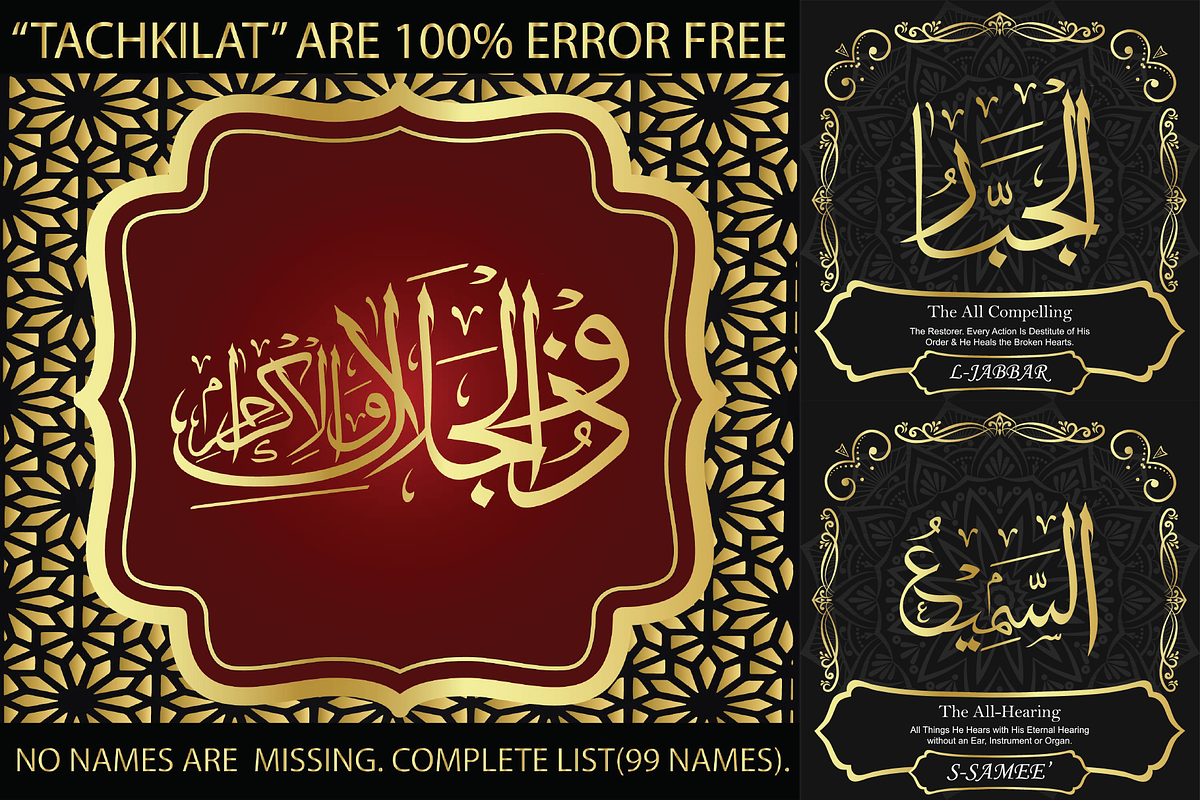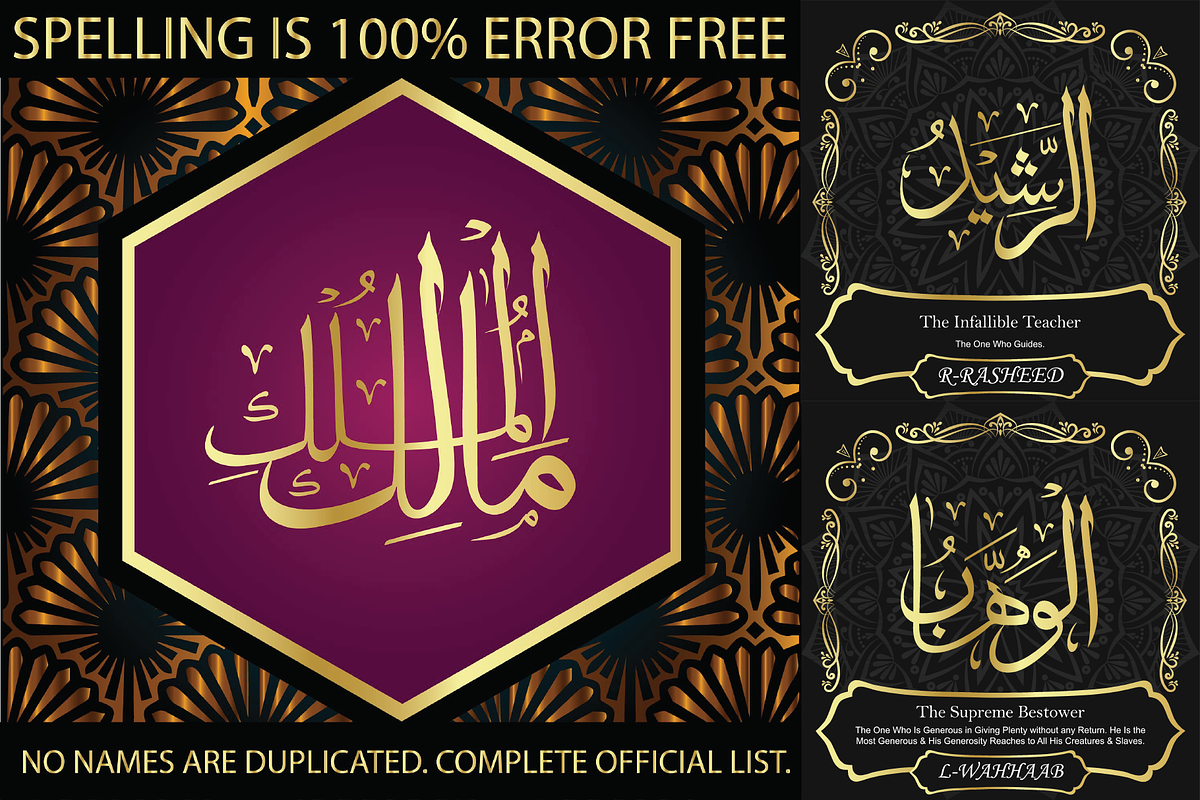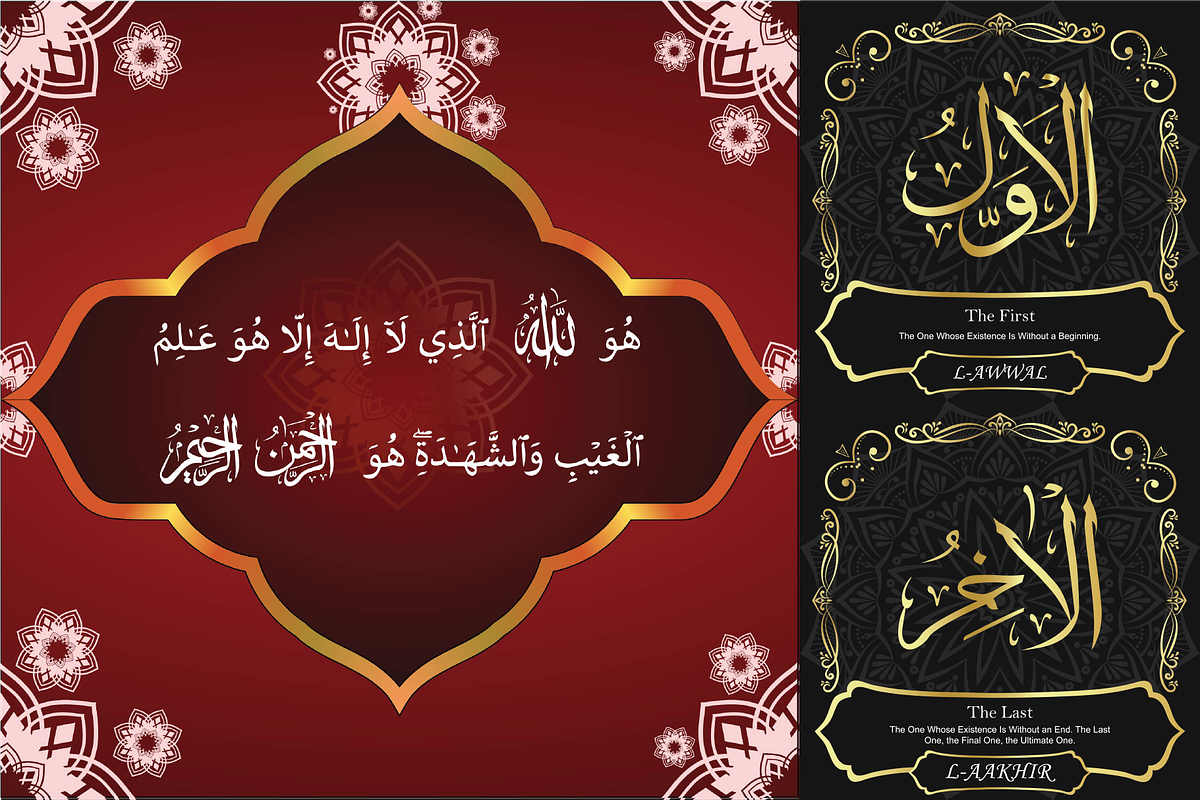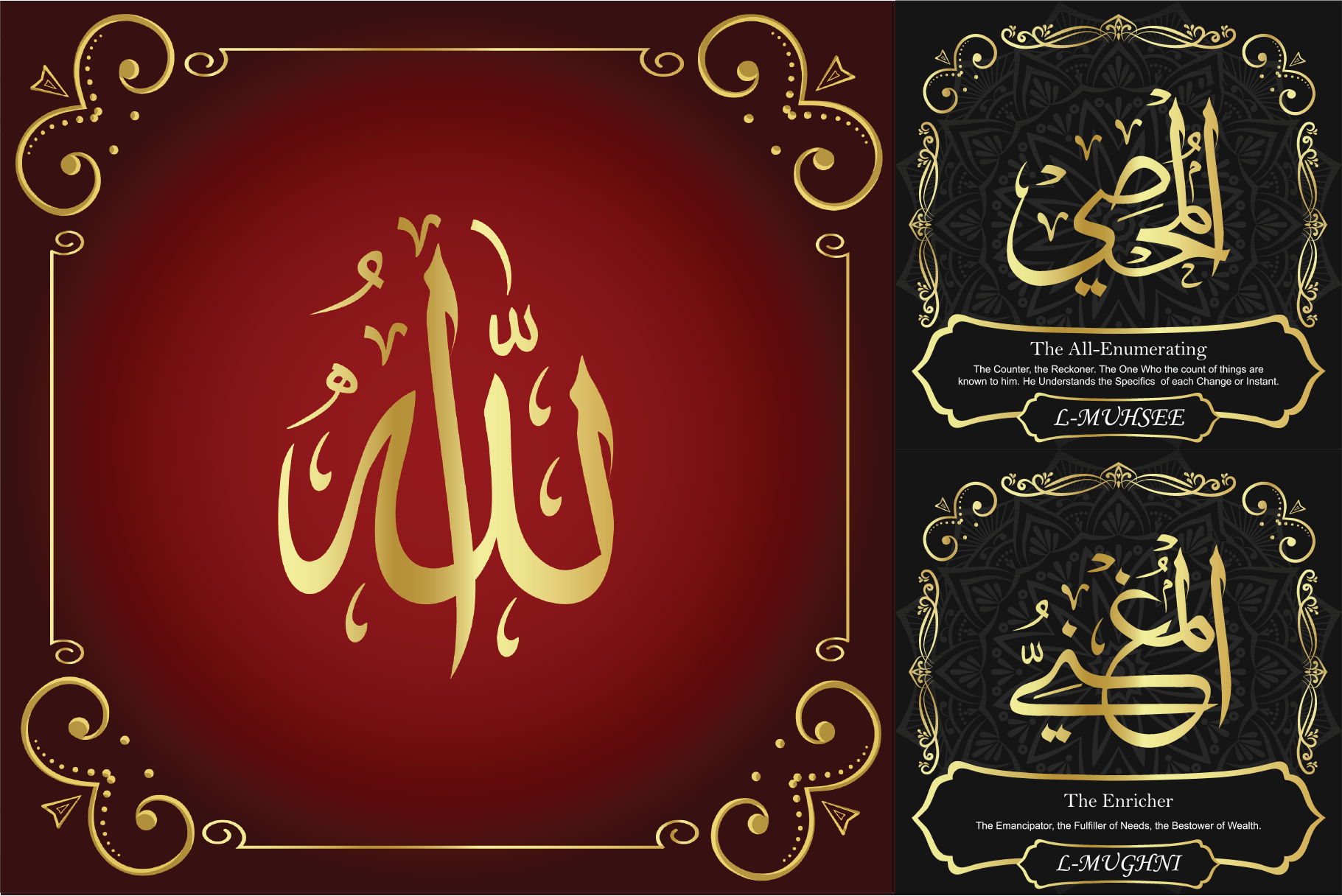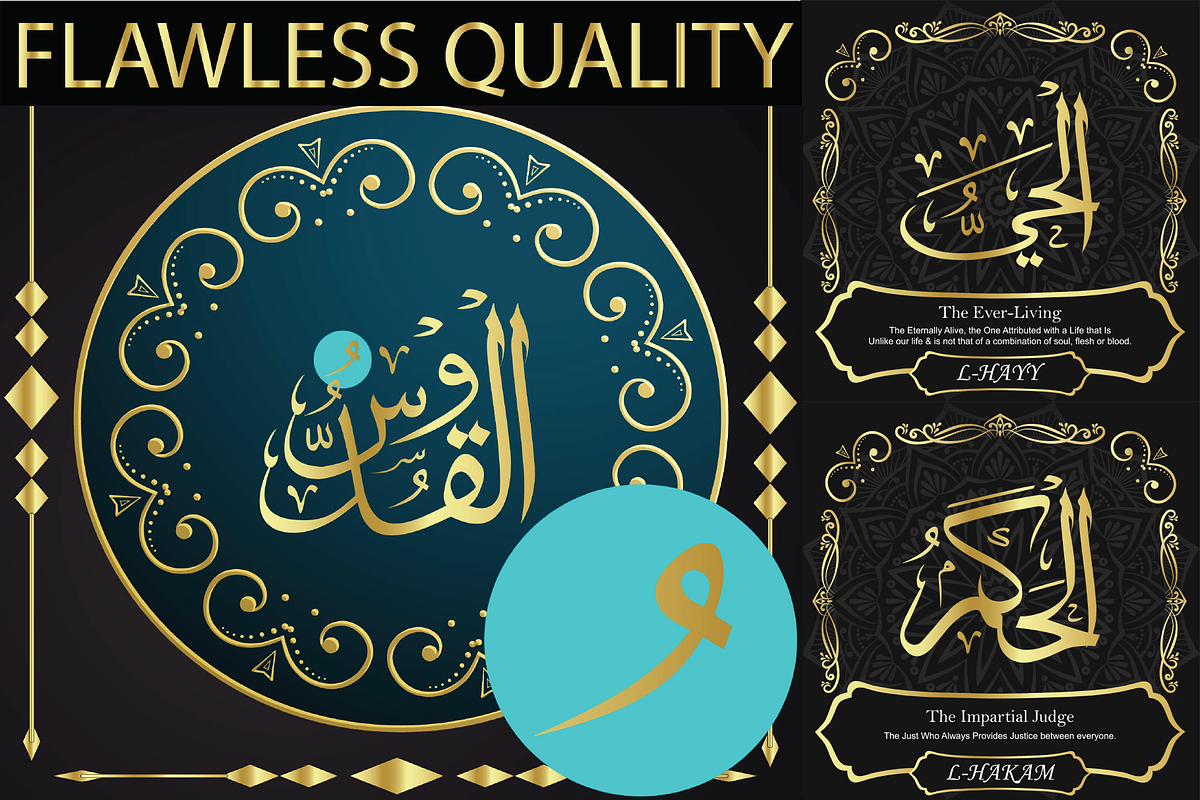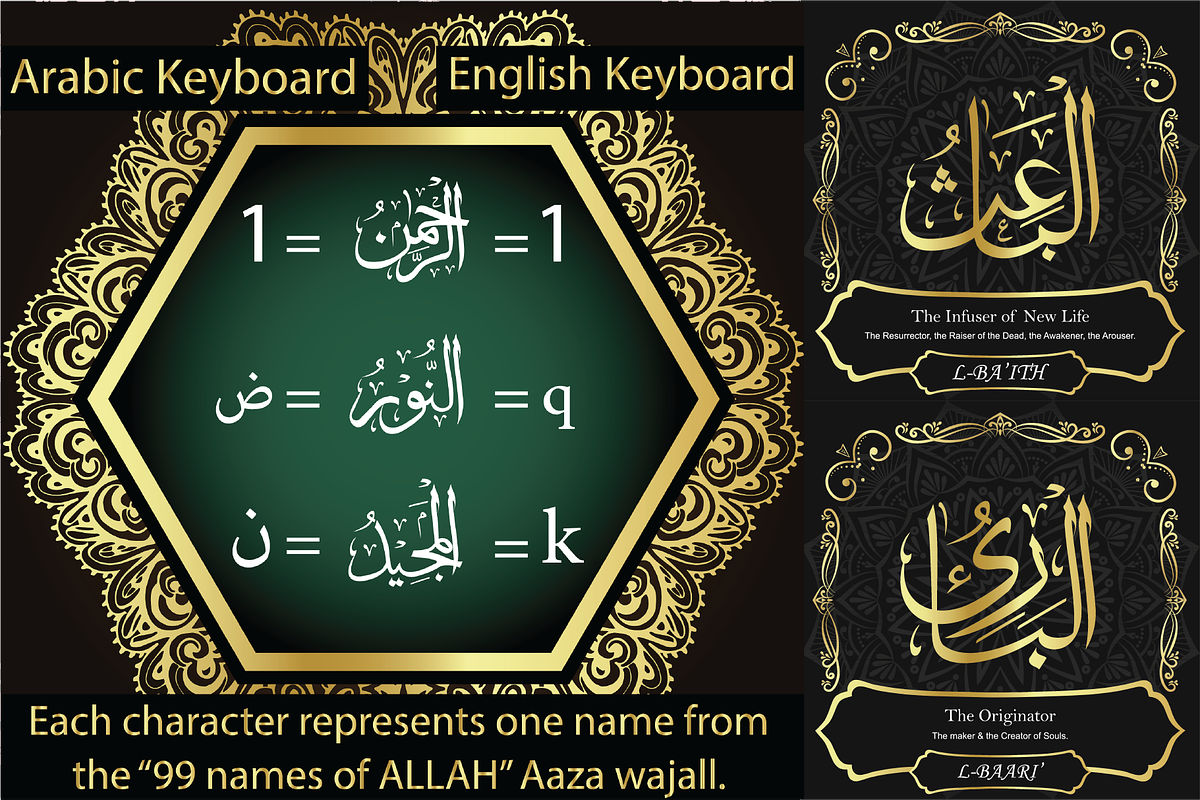
99 Names of ALLAH "Pilot" Font
We have transformed the “99 names of ALLAH” into a font. That means each key on your keyboard represents 1 of the 99 names of ALLAH Aaza Wajal. The fonts work with both the English and Arabic Keyboards.
We call this Calligraphy "Pilot" because it was the very first one we produced. The first "Alef" doesn't have a "hamzit wasel" nor a "fatha", this indicates to skip the pronunciation of that letter. So instead of saying "AR-RAHMAAN" you say "R-RAHMAN". (in the zip file you will find a pdf file explaining the differences in the "harakat", pronunciation and spelling according to the Holy Quran). Decorative letters used in this calligraphy: "Mim, Aain, Sin, HHe, He, Kaf & Alef".
- Writers: Highlight the names in your texts in beautiful Islamic calligraphy.
- Editors: Use with kinetic typography templates (AE) & editing software.
- Designers: The very small details in the names does not affect the quality. Rest assured it is flawless.
The MOST IMPORTANT THING about this list is that all the names are 100% ERROR FREE, and you can USE THEM WITH YOUR EYES CLOSED. All the “Tachkilat” are 100% ERROR FREE, all the "Spelling" is 100% ERROR FREE, and they all have been written in accordance with the Holy Quran. No names are missing and no names are duplicated. The list is complete "99 names +1". The +1 is the name “ALLAH” 'Aza wajal.
Another important thing is how we use the decorative letters. In every font you will see small decorative letters, these letters are used only in accordance with their respective letters to indicate pronunciation & we don't include them randomly. That means "mim" on top or below the letter "mim", "sin" on top or below the letter "sin", and so on and so forth.